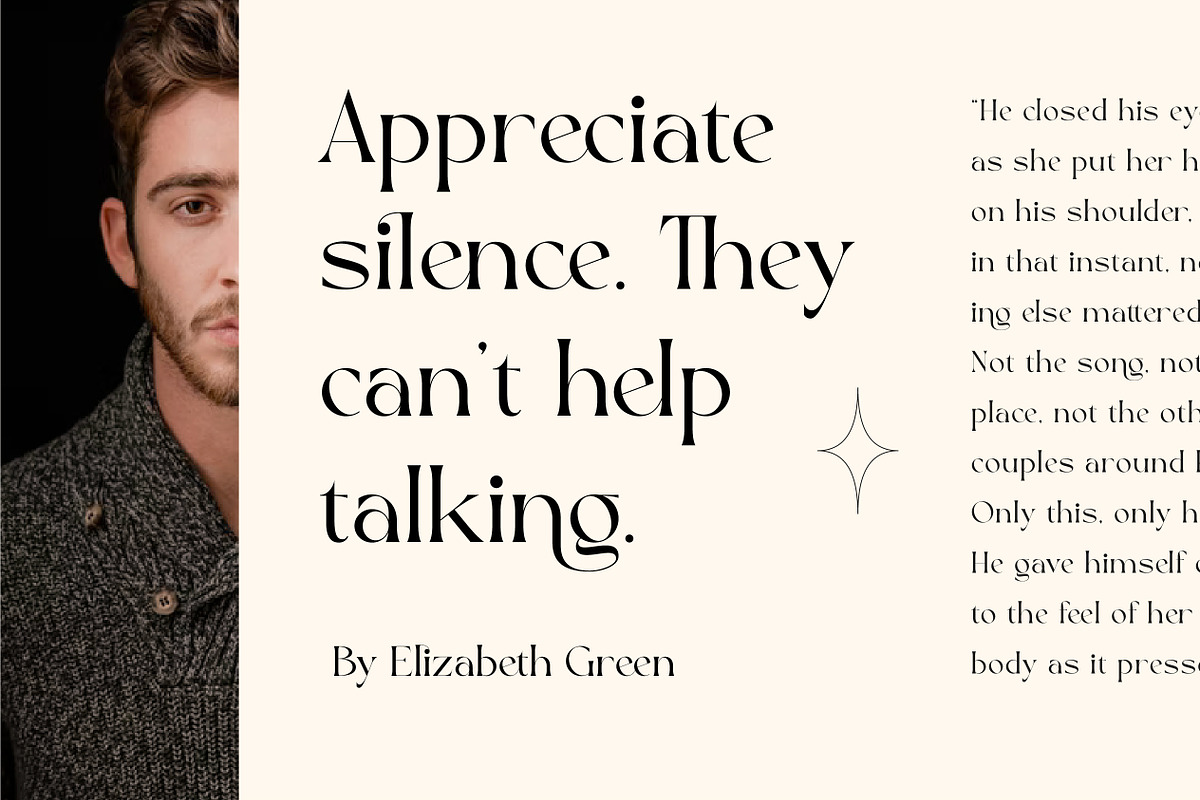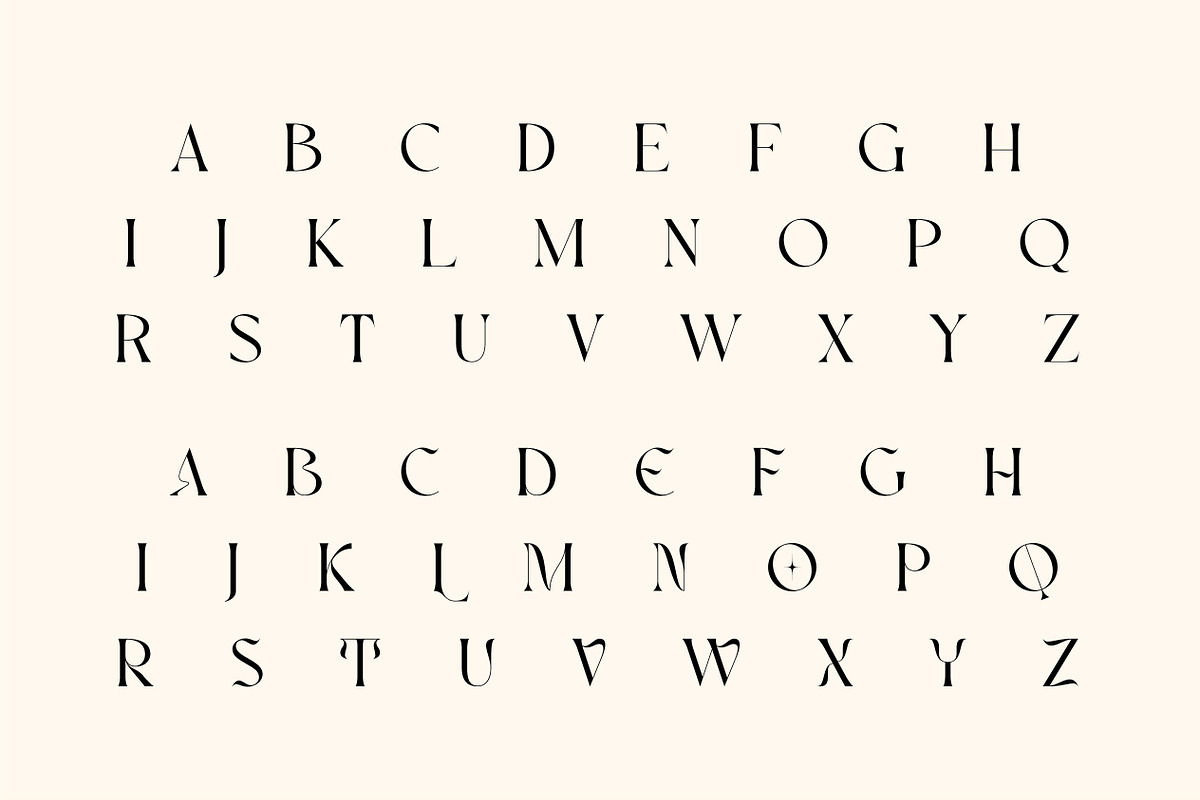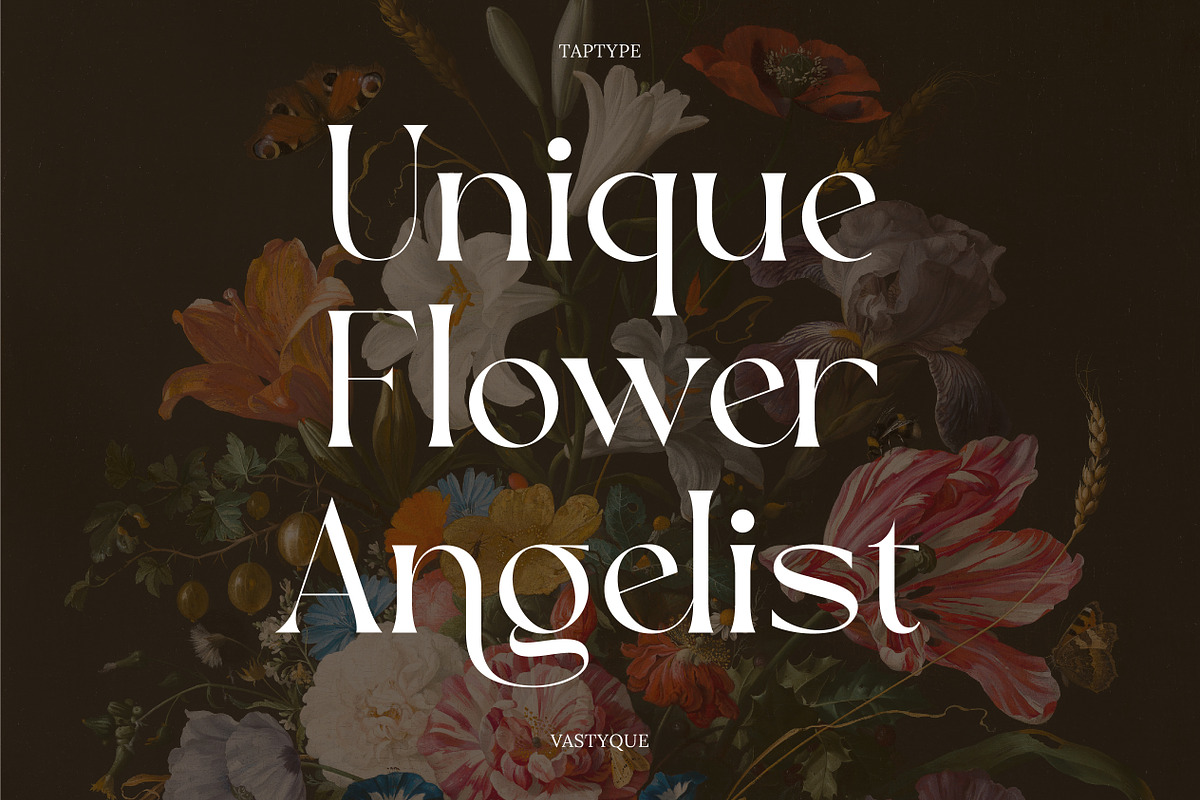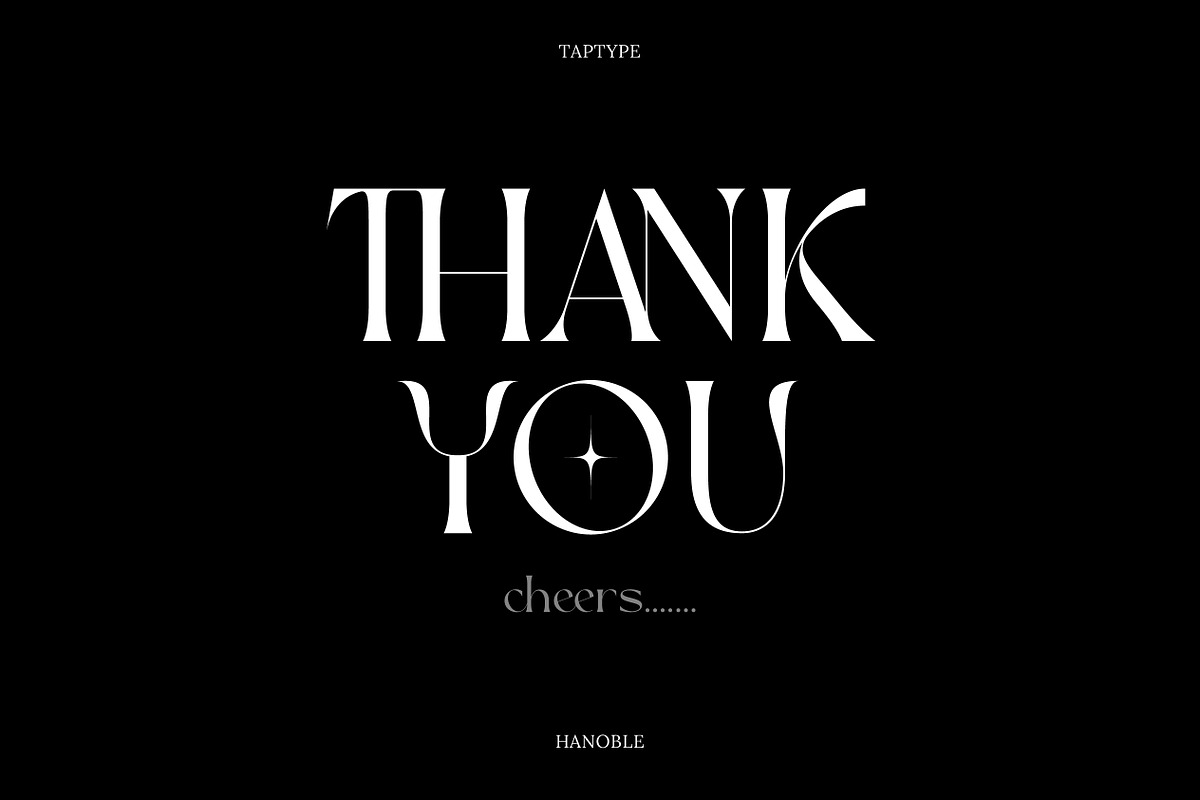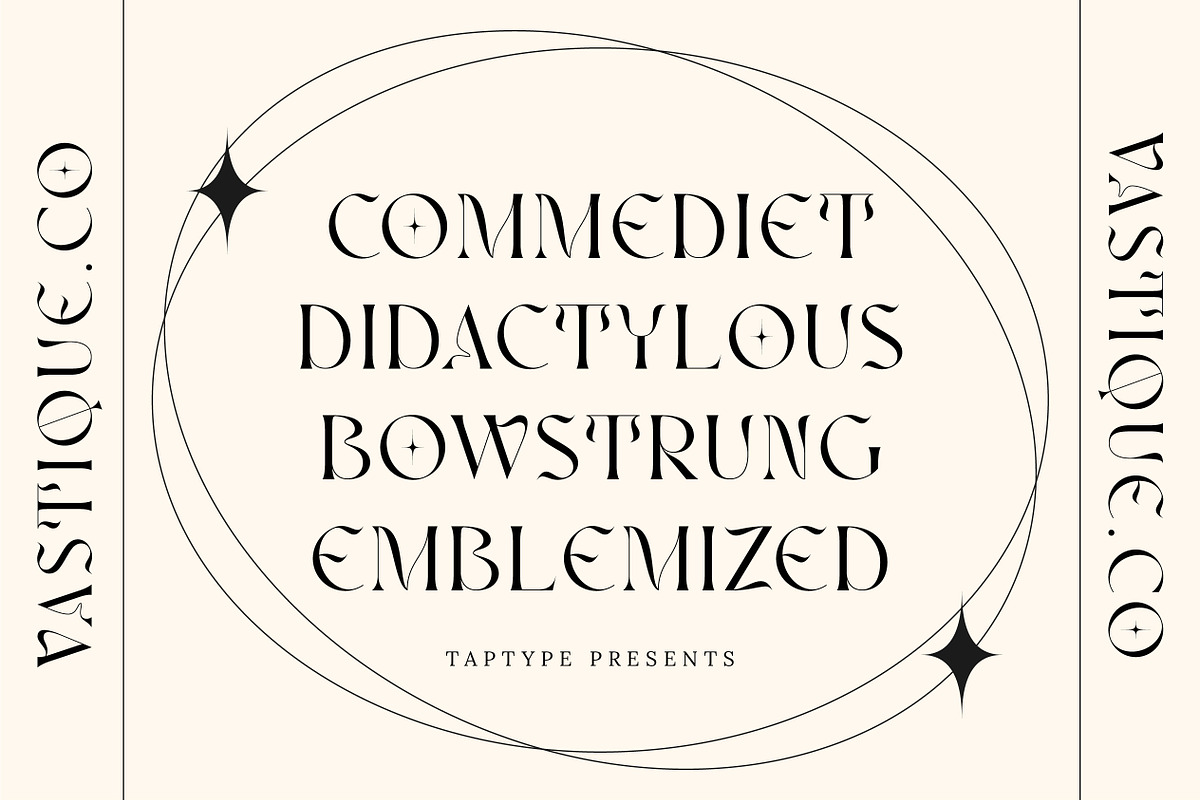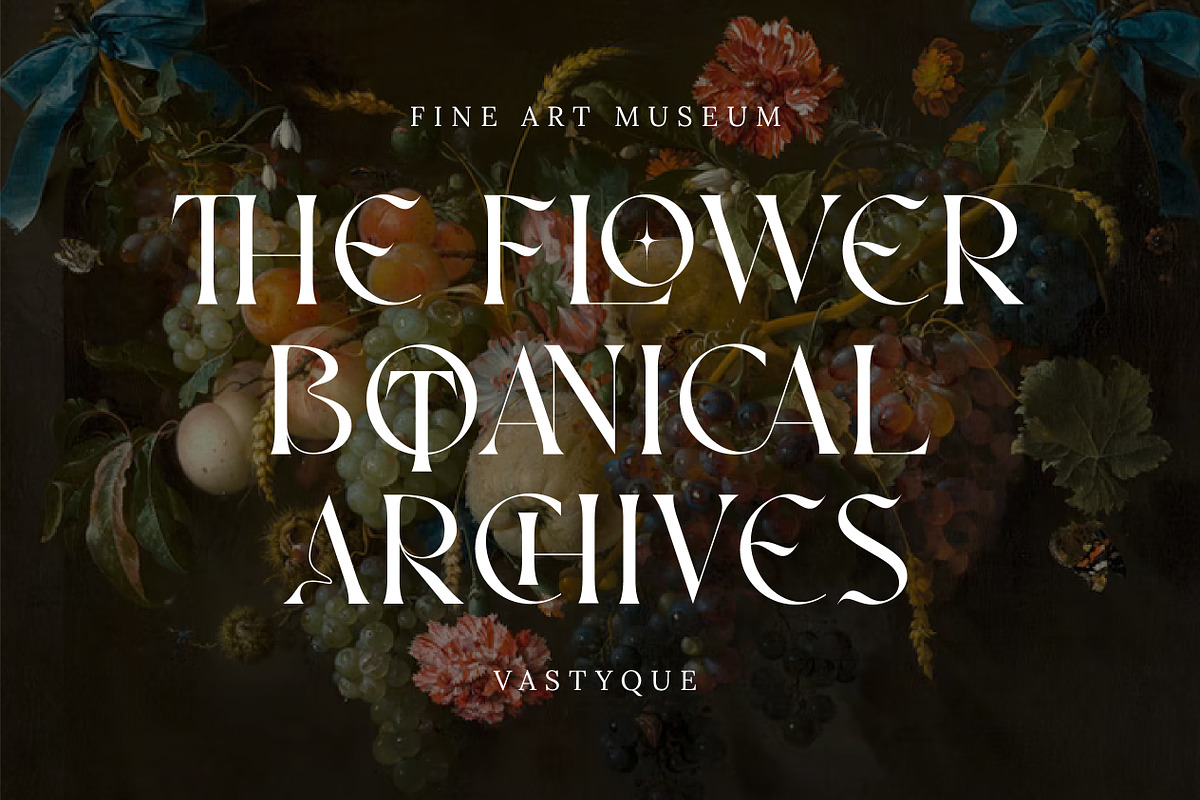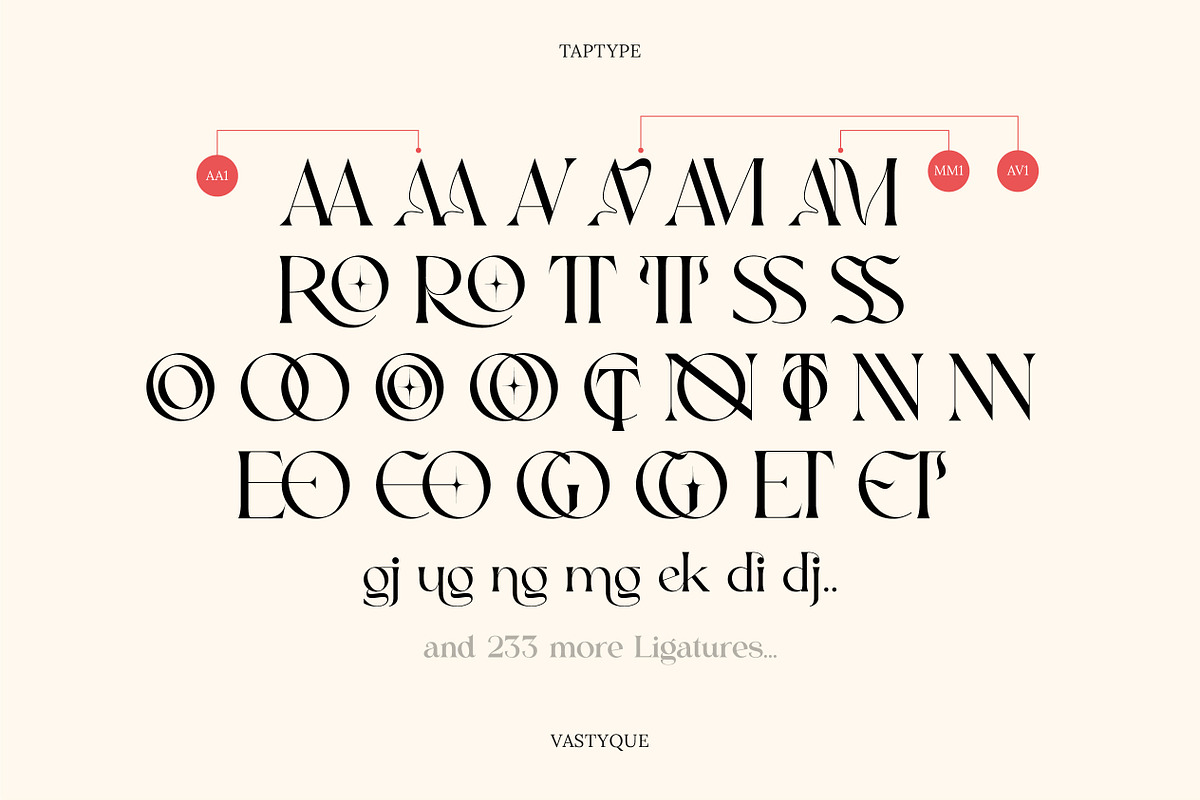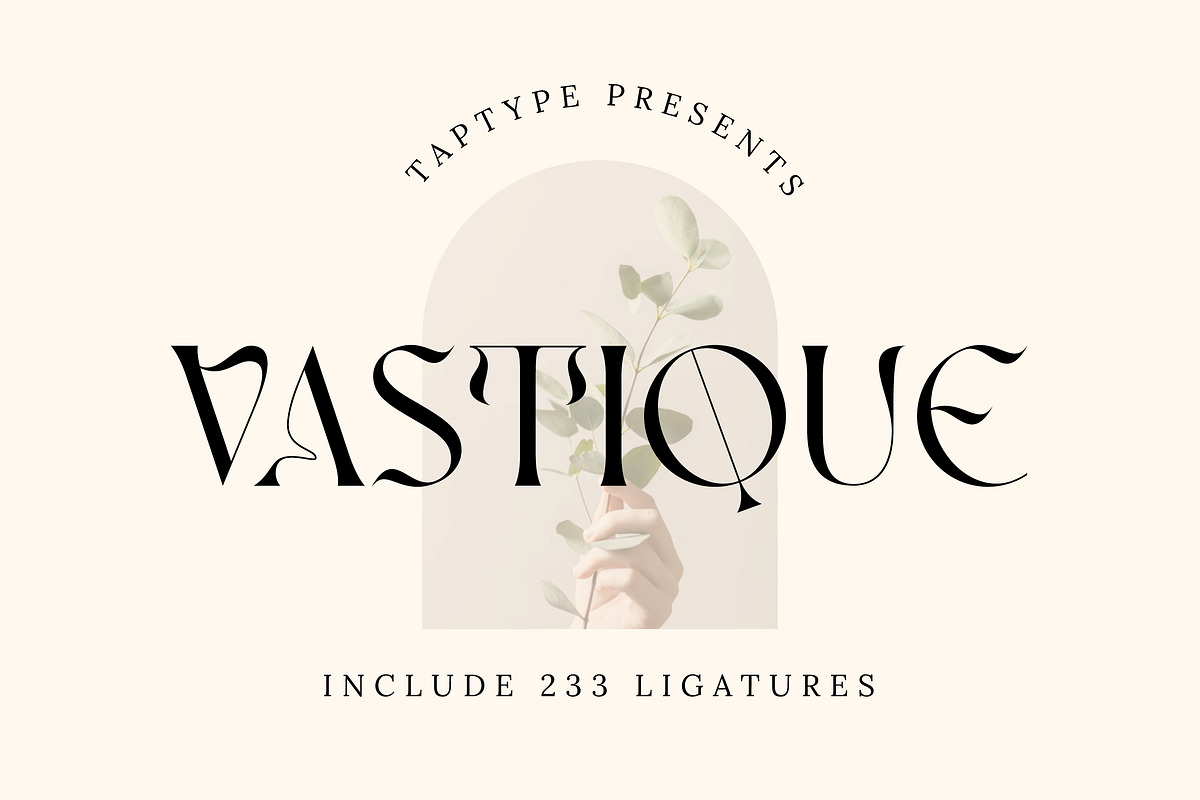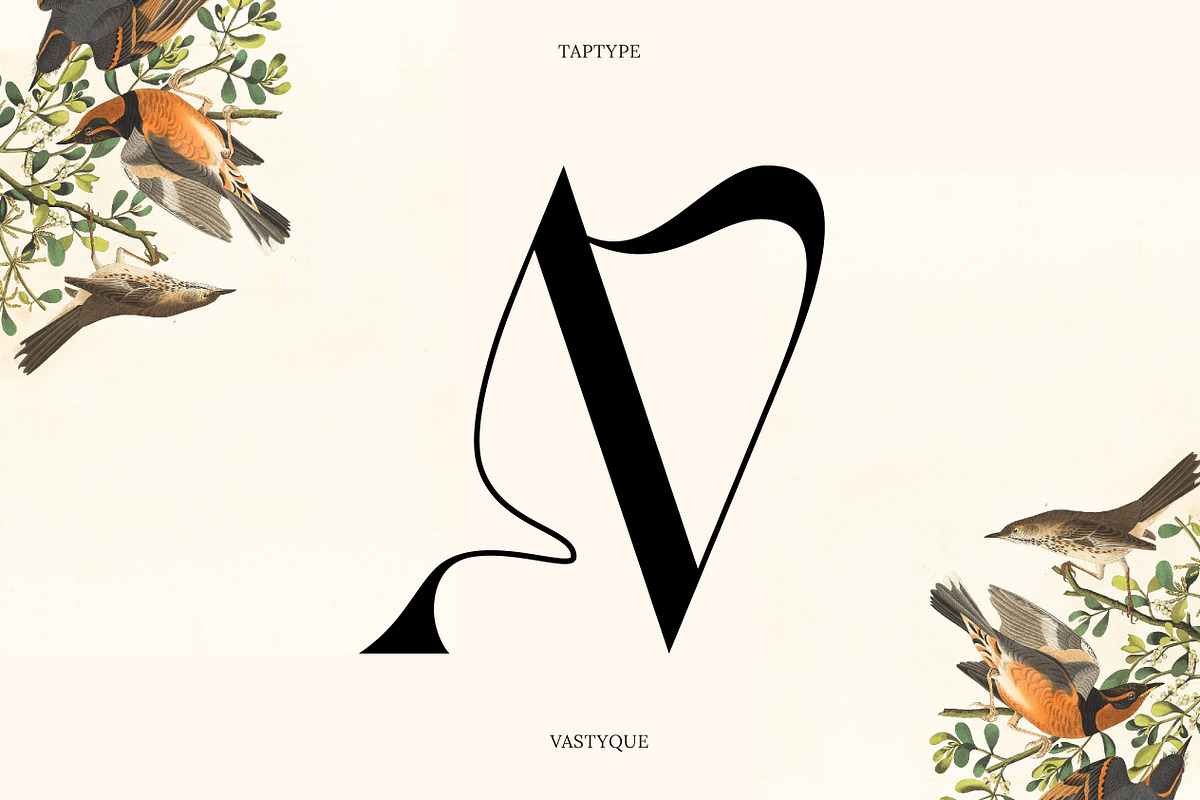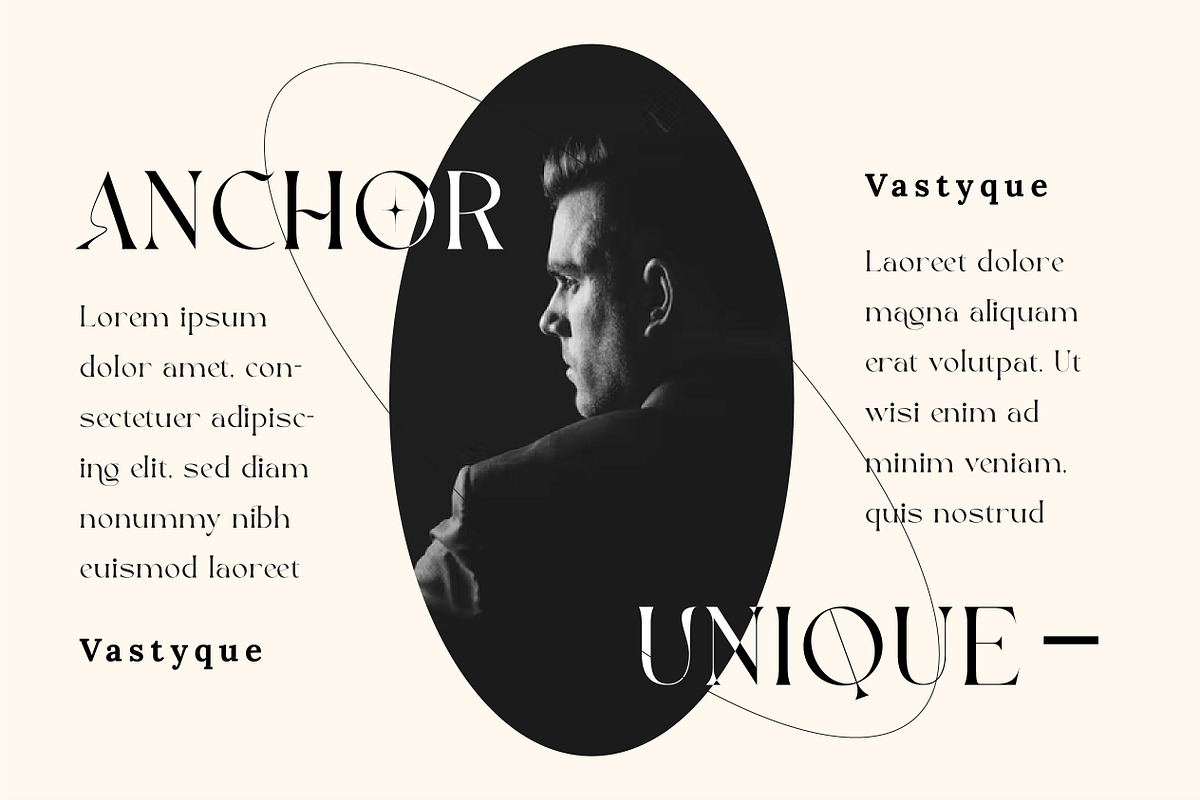
Vastyque - Modern Ligatures Serif
Vastyque is a stylish modern font with ligature-rich Serif. Minimalist character that allowing you to easily edit the designs. It is perfect for branding, wedding invites and cards, and maybe for some project.
- 233 Special ligatures